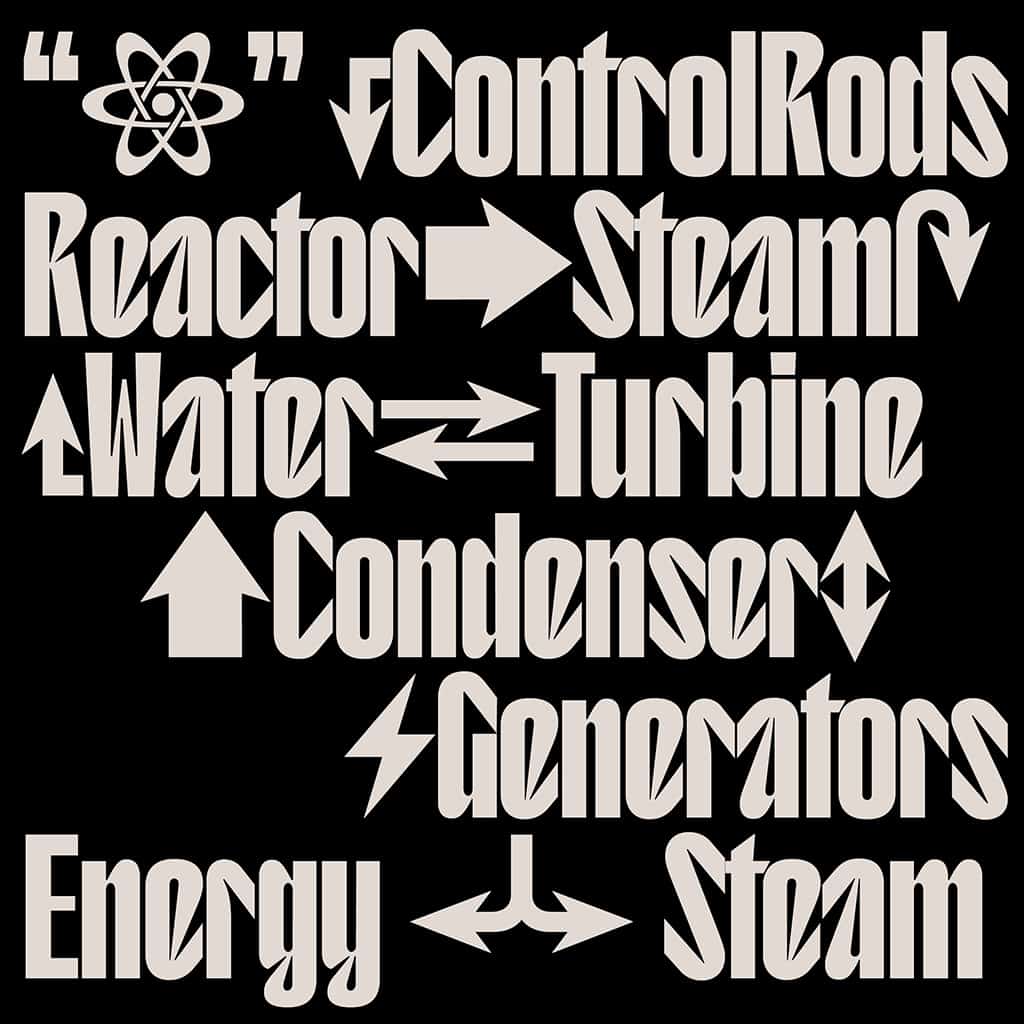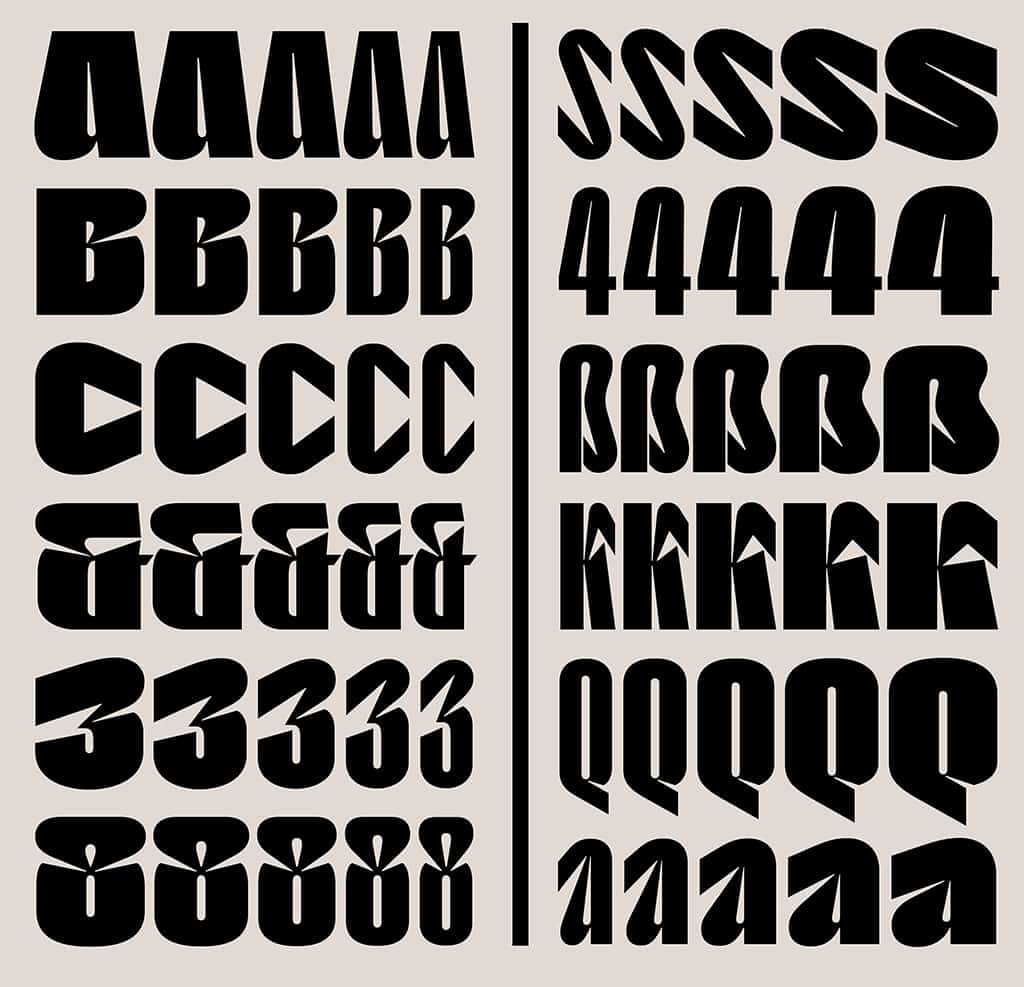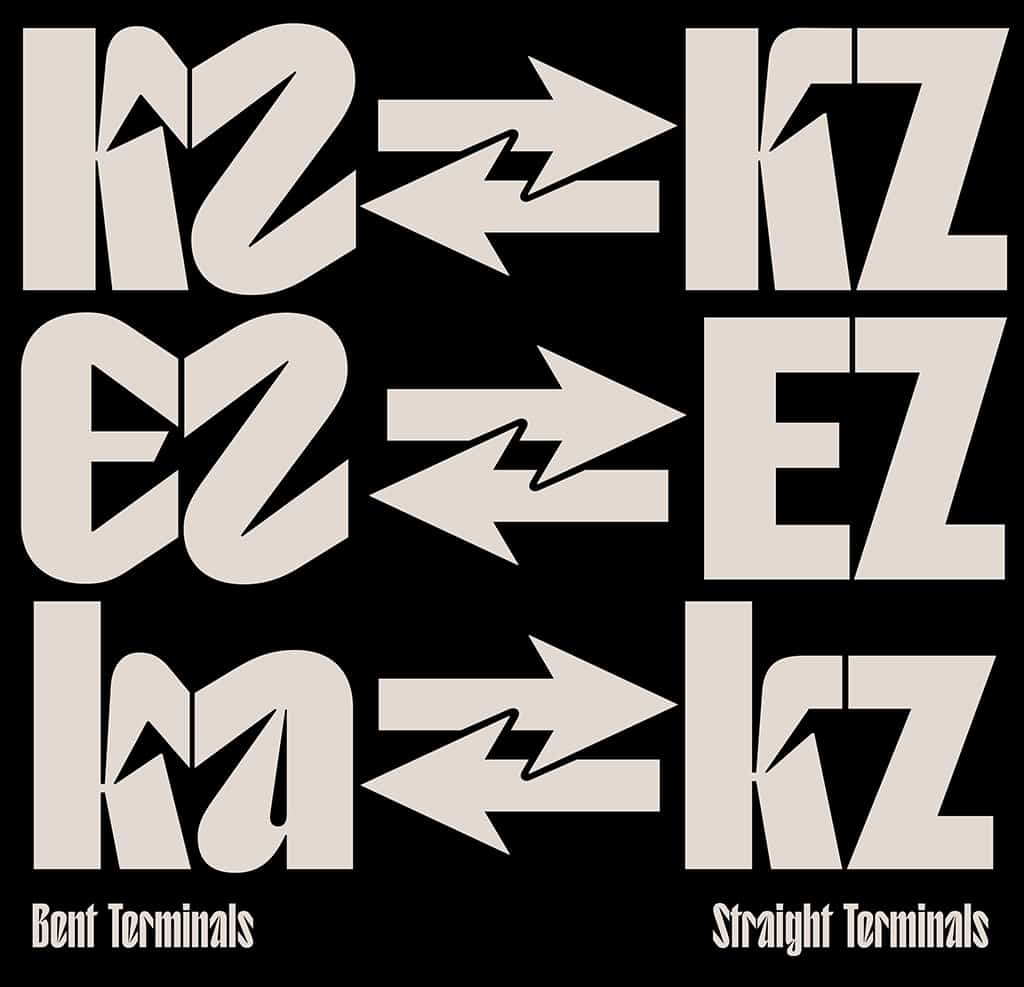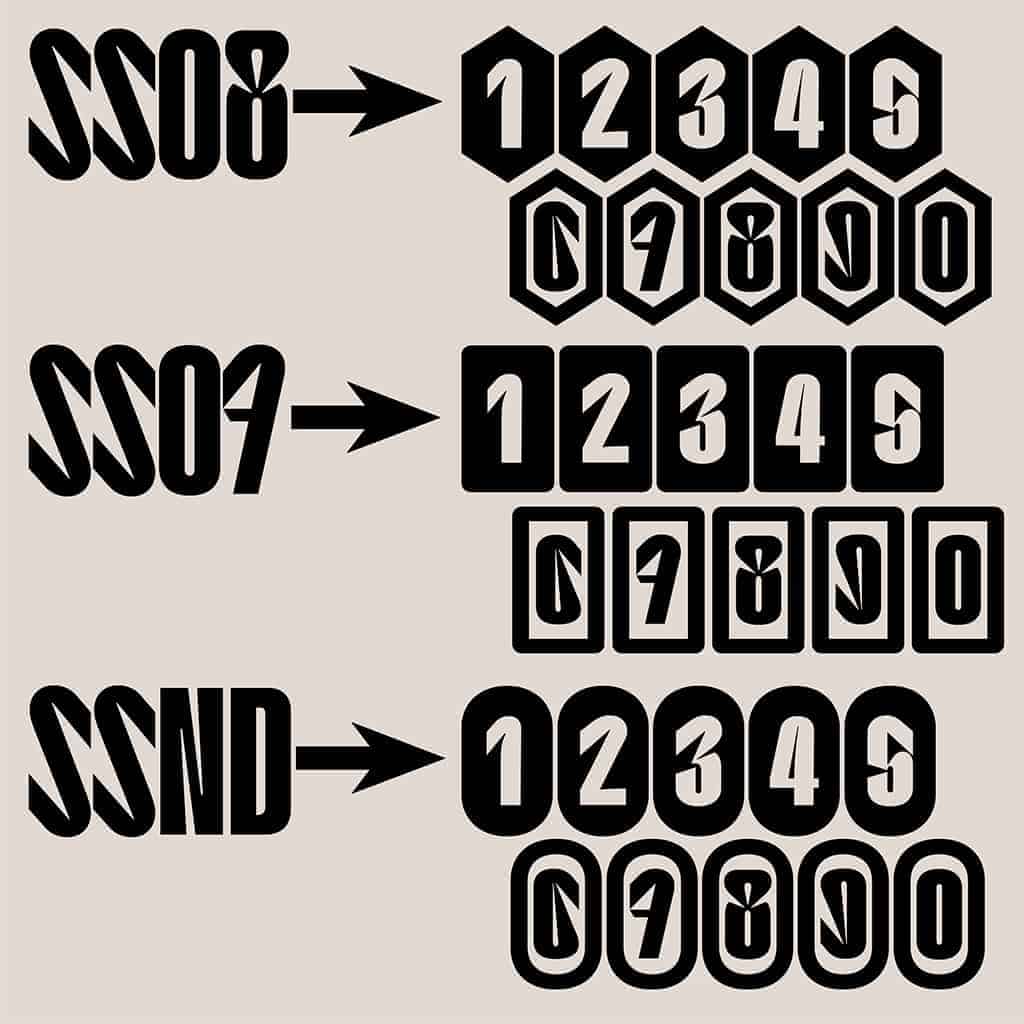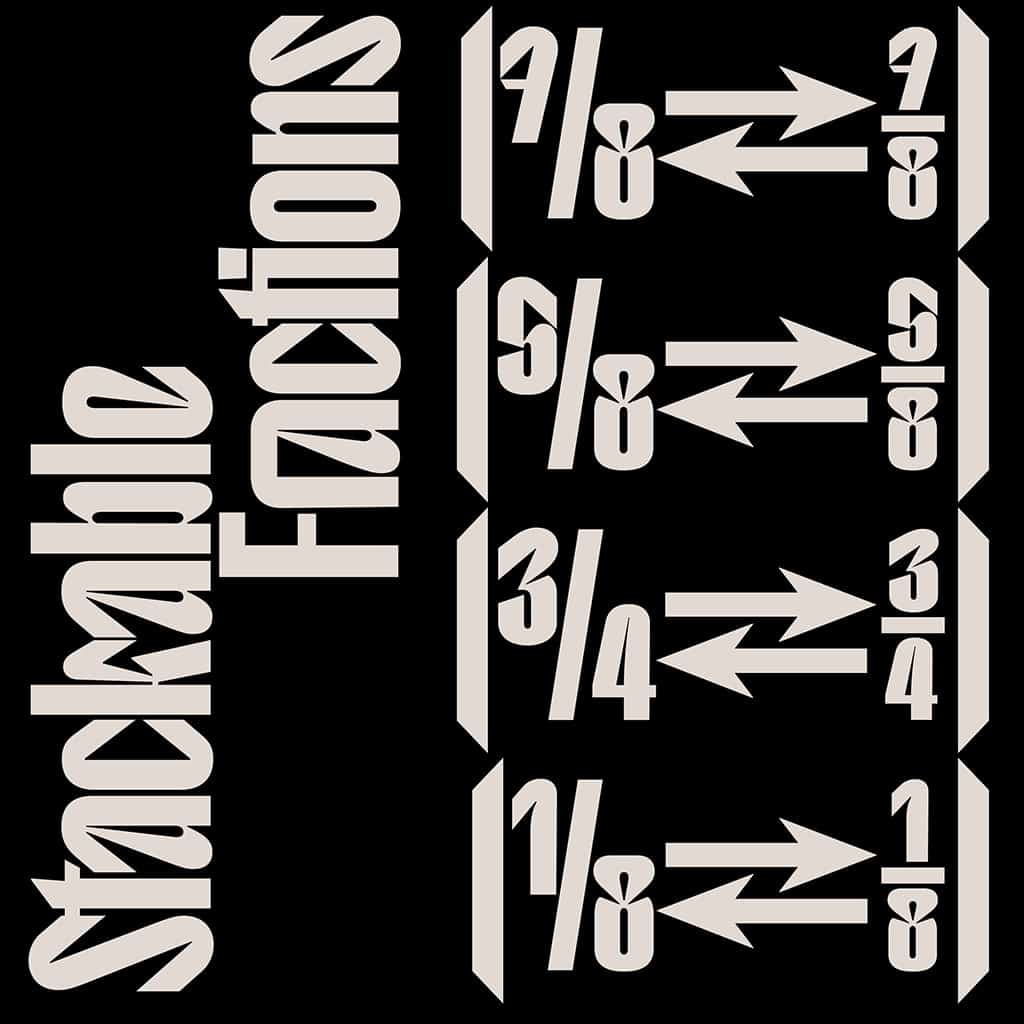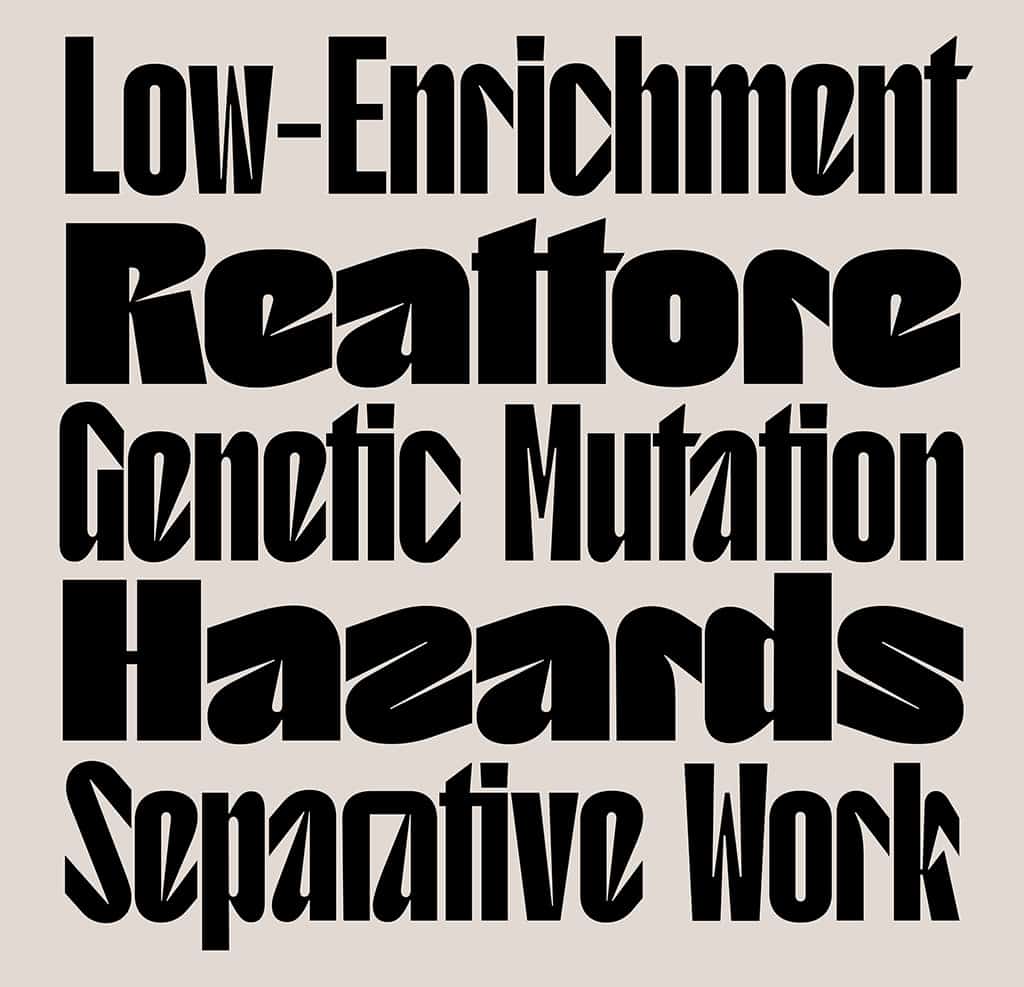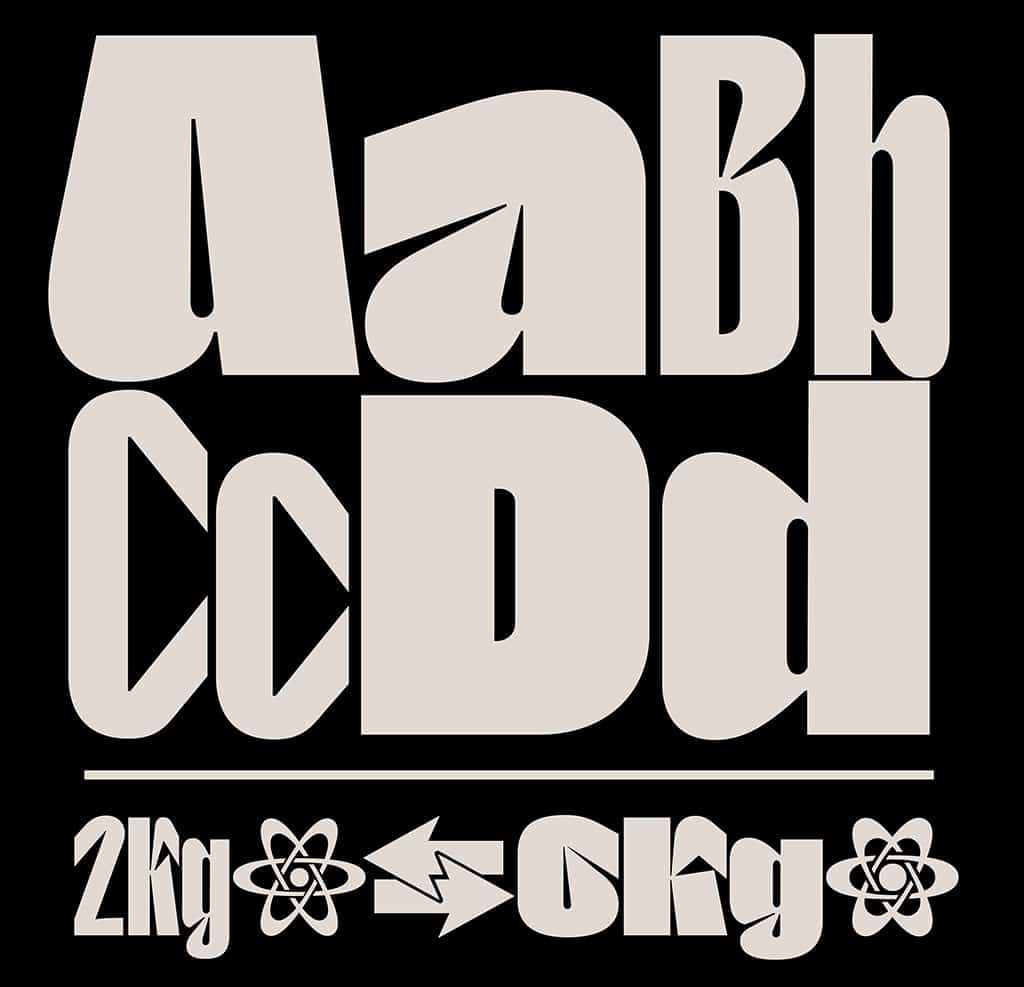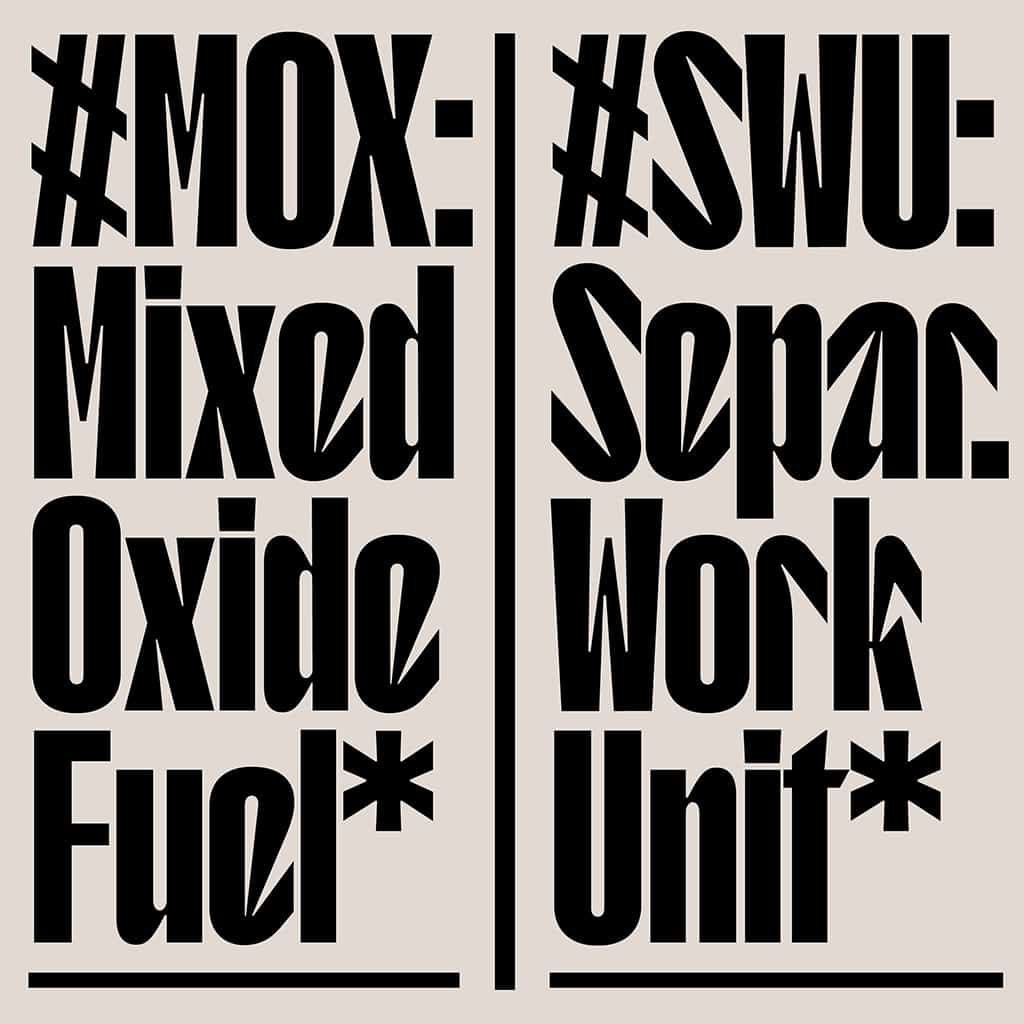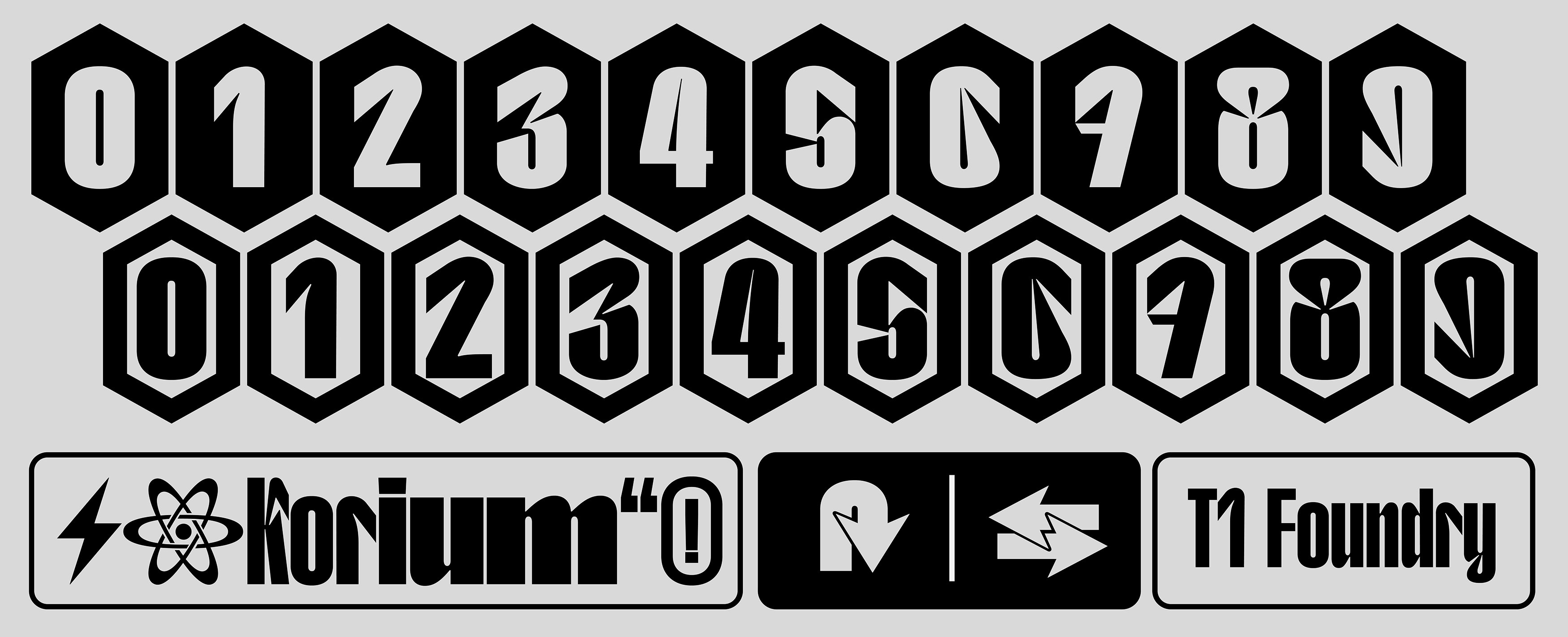
T1 Korium
Introducing Korium, the inaugural variable font by TYPE01, developed in collaboration with typeface designer Valerio Monopoli. Korium blends humanist elements with irresistibly condensed forms that are sleek yet assertive—evoking a contemporary sans serif with angular shapes and a badass attitude.
T1 Korium’s namesake was inspired by corium, a deadly, lava-like material created in the core of a nuclear reactor during a meltdown incident. You can find the character set packed with symbols you would associate with a nuclear plant setting, like a complete set of wayfinding arrows, the Atom, Biohazard, Radioactivity symbols, chemical signs, and more Unicode easter eggs.
- Stylistic Alternate 'A'